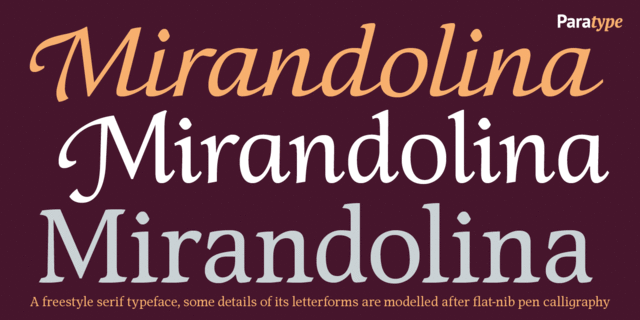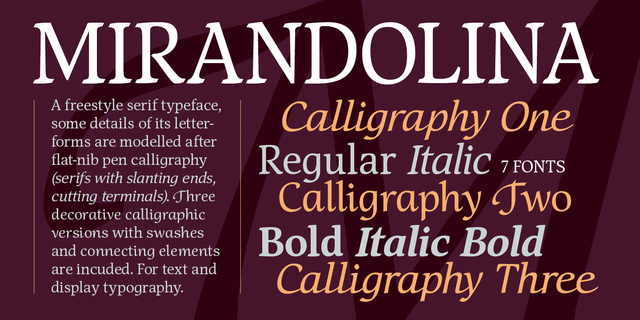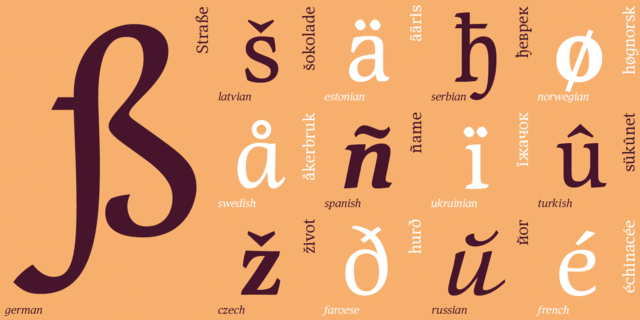
Mirandolina (7 fonts)
About Mirandolina is a freestyle serif typeface with some details of its letterforms modelled in a style of flat-nib pen calligraphy (serifs with slanting ends, cutting terminals). Three decorative calligraphic versions with swashes and connecting elements are incuded. The font is suitable for text and display typography. It was designed by Natalya Vasilyeva and licensed by ParaType in 2007.